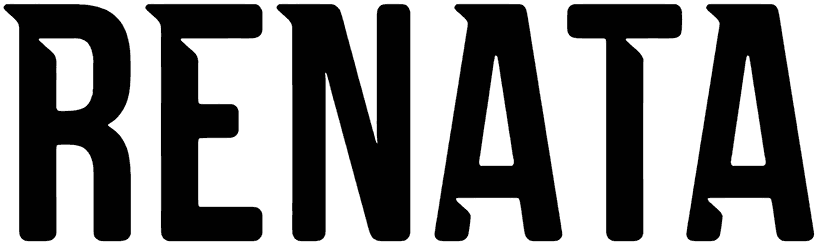
Renata Font
Use this unique modern font to give a powerful and fast visual to your design in a modest way. As an all-caps font, this item is a good choice for titles and special words. The Renata font doesn’t support lowercase letters, but test it for your innovative projects like a match event flyer and capture a lot of visitors.